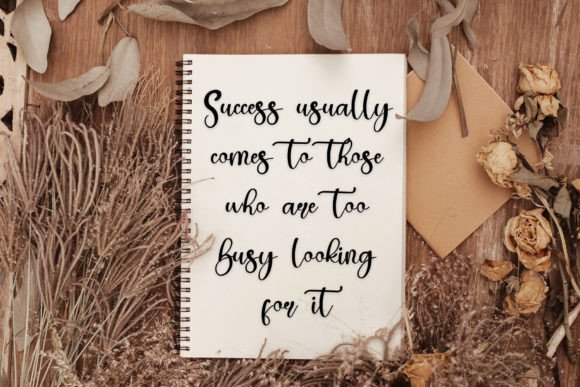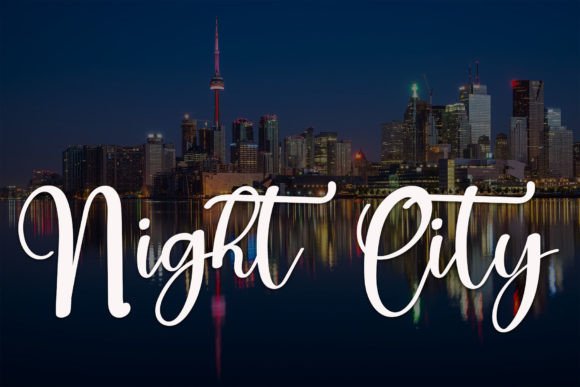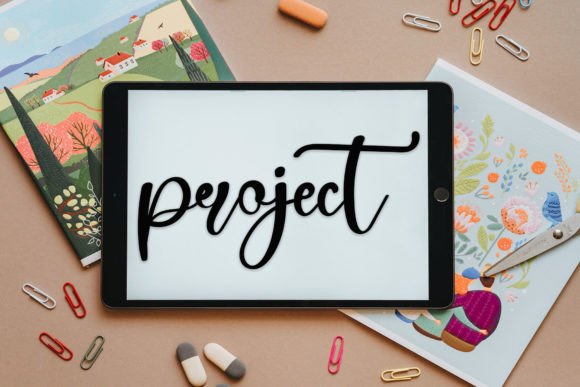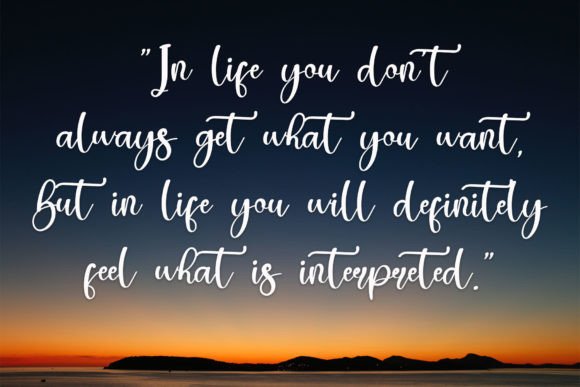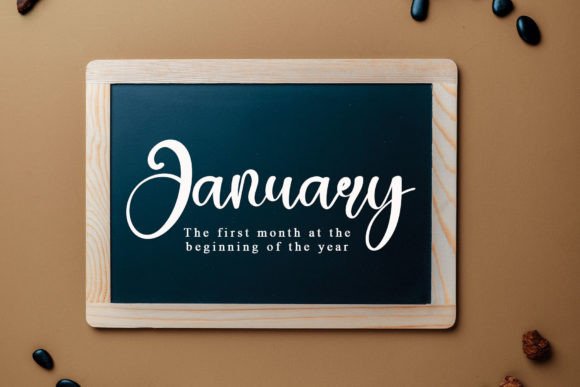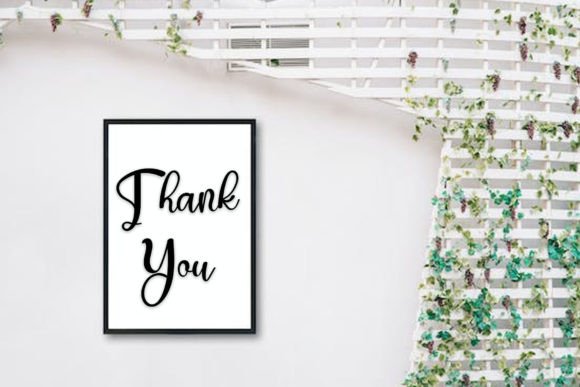
Unleashing the Magic of Autumn
As a designer, there’s nothing quite like the rush of inspiration that comes with a blank canvas and a blank mind. You’re scrolling through your favorite design platform, and suddenly, you stumble upon the perfect font – one that captures the essence of the season and transports you to a world of creativity. For me, that moment happened when I discovered the Autumn Font, a beautiful, handwritten script that exudes elegance and sophistication.
Autumn Font is a timeless treasure that’s perfect for designers looking to add a touch of warmth and coziness to their projects. With its distinct, flowing style, this font is sure to leave a lasting impression on your audience. Whether you’re working on a wedding invitation, a blog post, or a social media graphic, Autumn Font is the perfect addition to elevate your design game.
What sets Autumn Font apart is its versatility and the value it brings to designers. It’s not just a font – it’s a statement piece that can transform any project into a masterpiece. So, why not fall in love with the Autumn Font and let its beauty inspire your next design adventure?
Autumn Font Key Features
- Font Family: Autumn is a script font family, designed to evoke a sense of elegance and sophistication.
- Unique Characteristics: Autumn Font features a unique, hand-drawn design with subtle imperfections, giving it a personal and exclusive feel.
Designer Review: Autumn Font
Overall, I think Autumn Font is a beautiful, elegant script font. ✨ It has a warm, inviting feel that’s perfect for fall-themed projects, wedding invitations, or any design that needs a touch of sophistication.
The font’s design is well-balanced, with delicate lines and subtle flair that give it a whimsical feel. ✨ The ligatures are also nicely done, which adds to the overall polish of the font.
While Autumn Font is a lovely font, it’s not without its limitations. ⚠️ One of the main issues is that it’s not very legible at smaller font sizes. ⚠️ This can make it difficult to use in designs where text needs to be small.
Another limitation is that the font doesn’t come with a lot of weights or styles. ⚠️ This can limit its versatility in certain design contexts.
Conclusion
In conclusion, Autumn Font is a beautiful, elegant script font that’s perfect for certain design projects. While it has some limitations, I think it’s worth using in designs where you want to add a touch of sophistication and elegance.
- Beautiful, elegant script design
- Well-balanced and delicate lines
- Nice ligatures
- Perfect for fall-themed projects or wedding invitations
- Not very legible at smaller font sizes
- Limited weights and styles
Autumn Font: A Practical Application Guide
Tips for Getting the Most Out of Autumn Font
Autumn Font is perfect for creating cozy and inviting designs. Here are some tips to get the most out of it:
- Use it for fall-themed designs, such as Halloween invitations or Thanksgiving menus.
- Pair it with warm colors like orange, yellow, and red to create a cozy atmosphere.
- Use it in combination with other fonts to create a unique and eye-catching design.